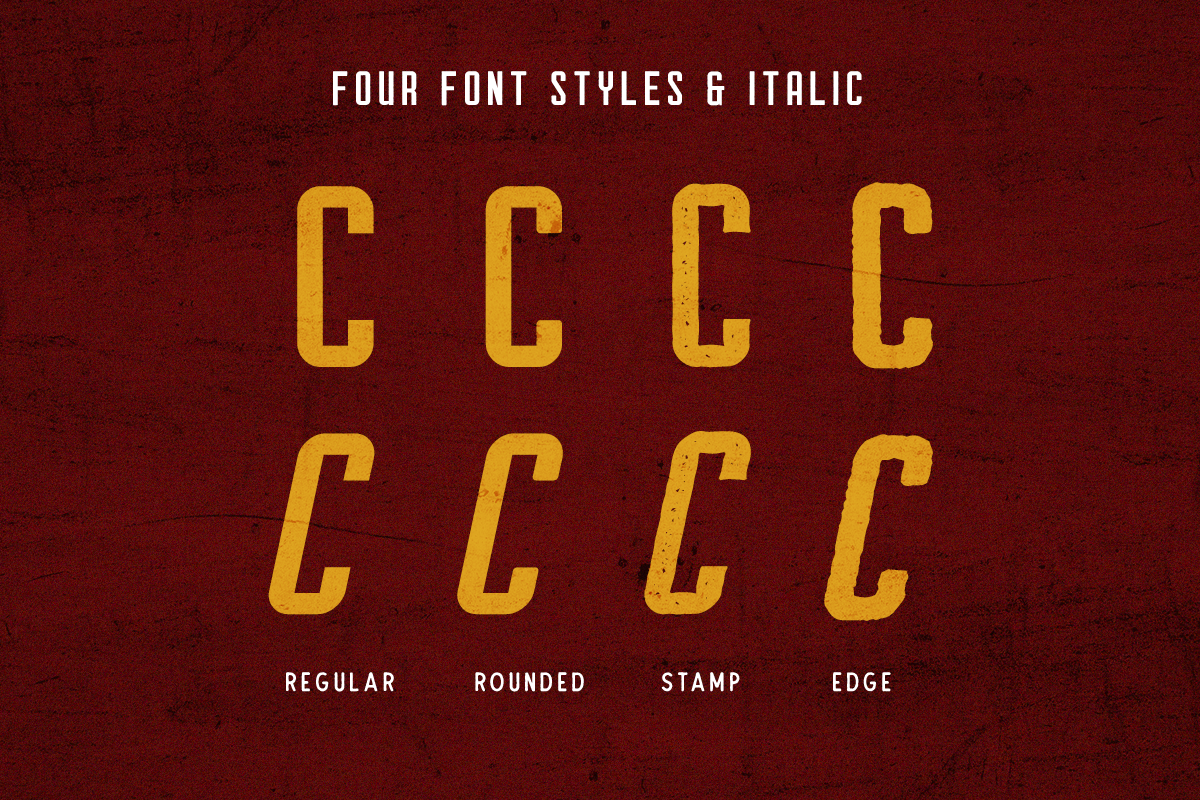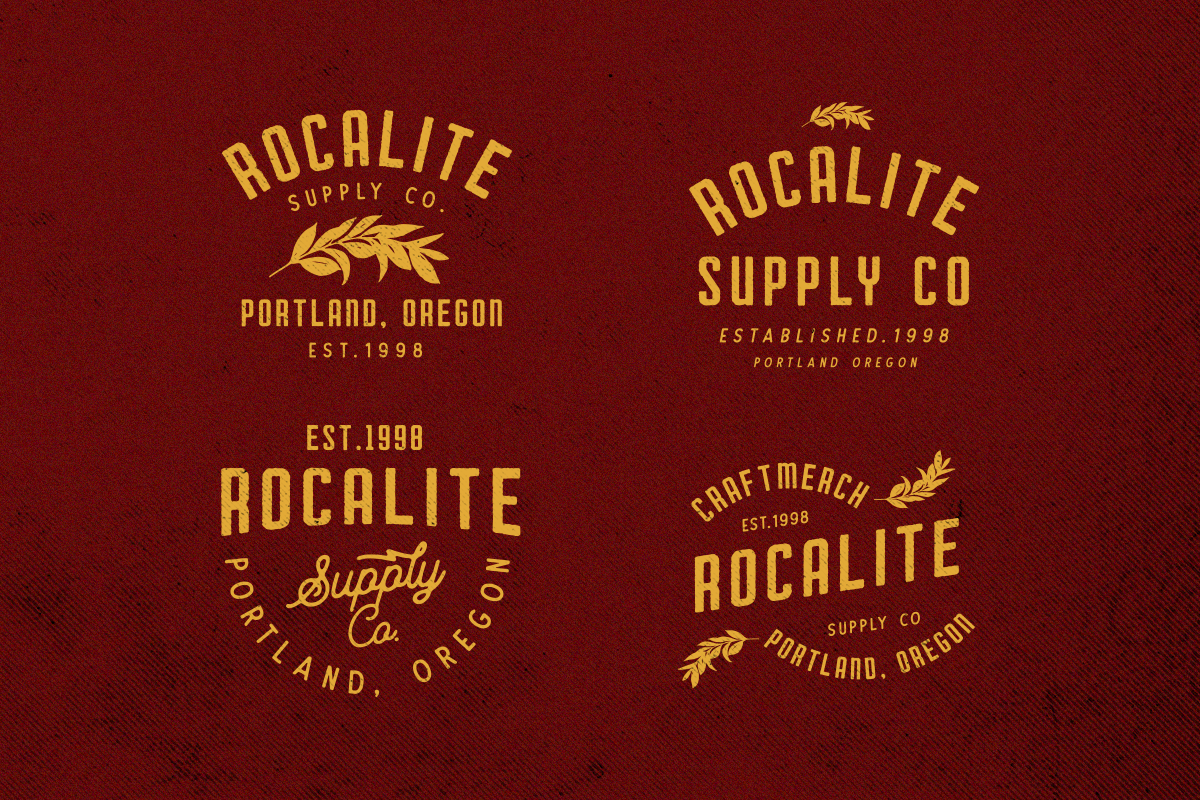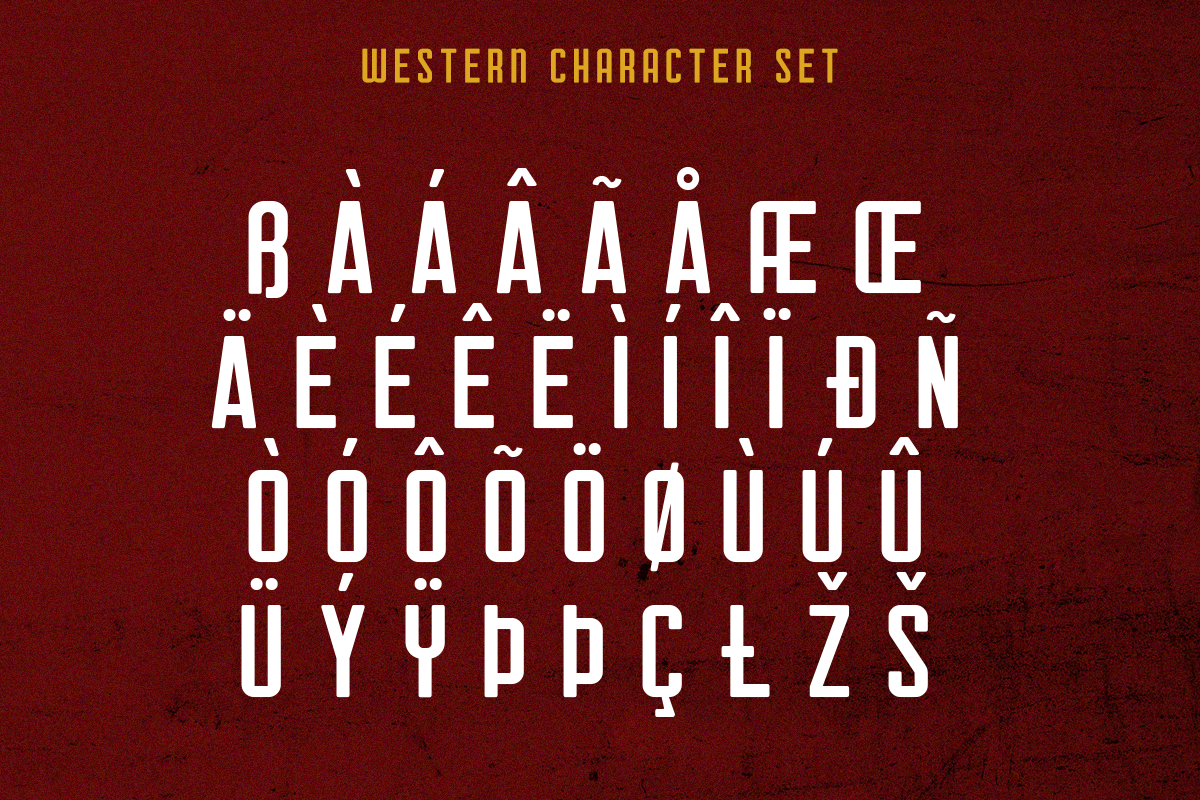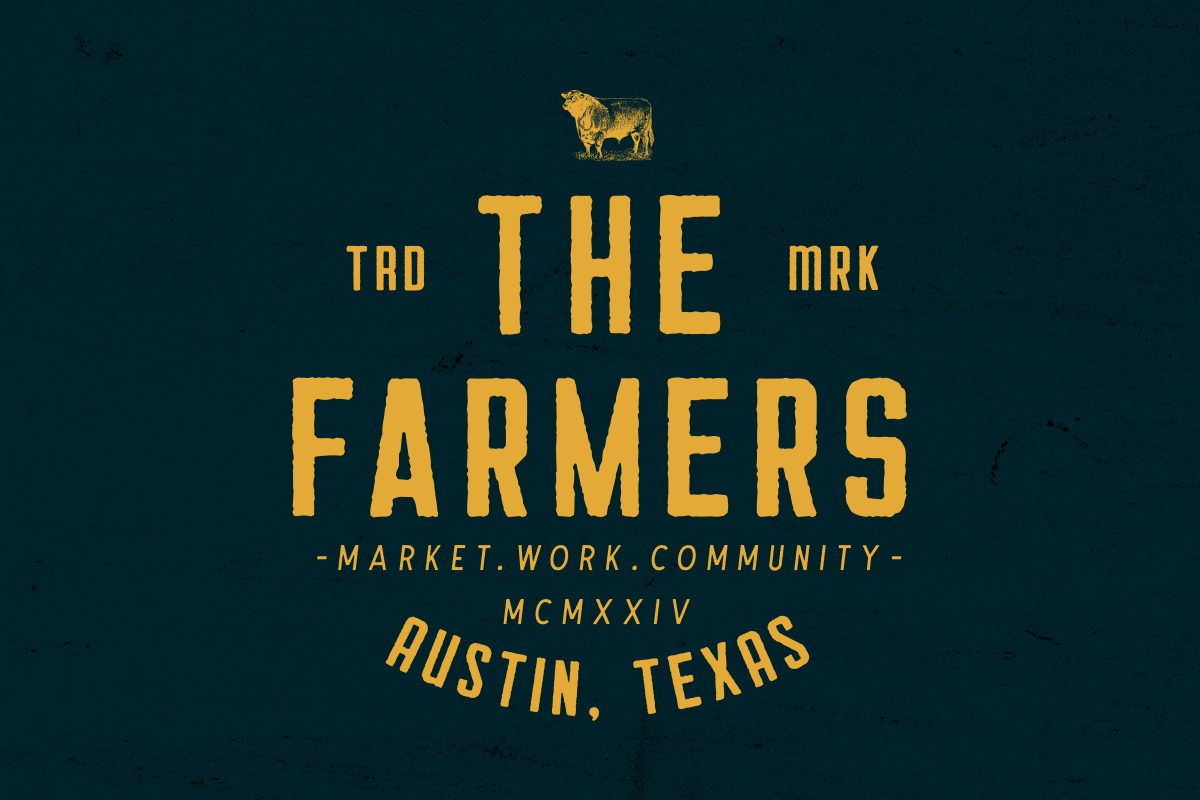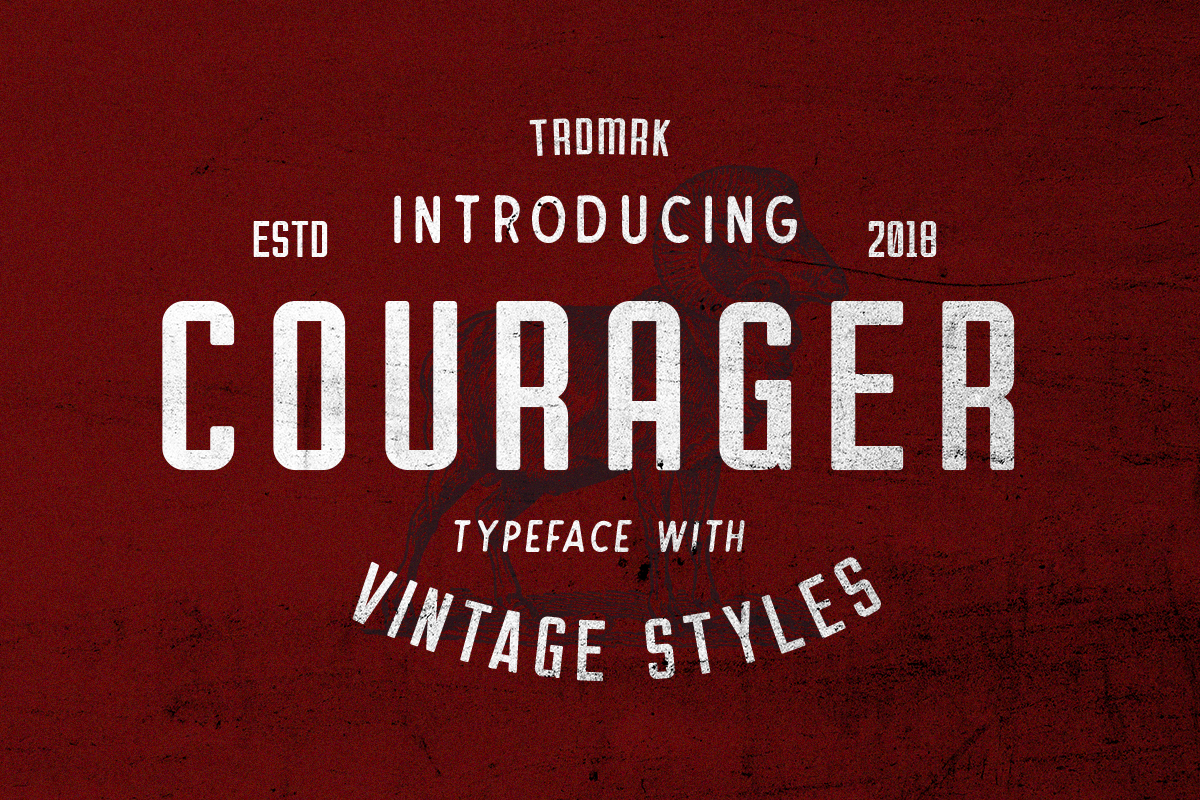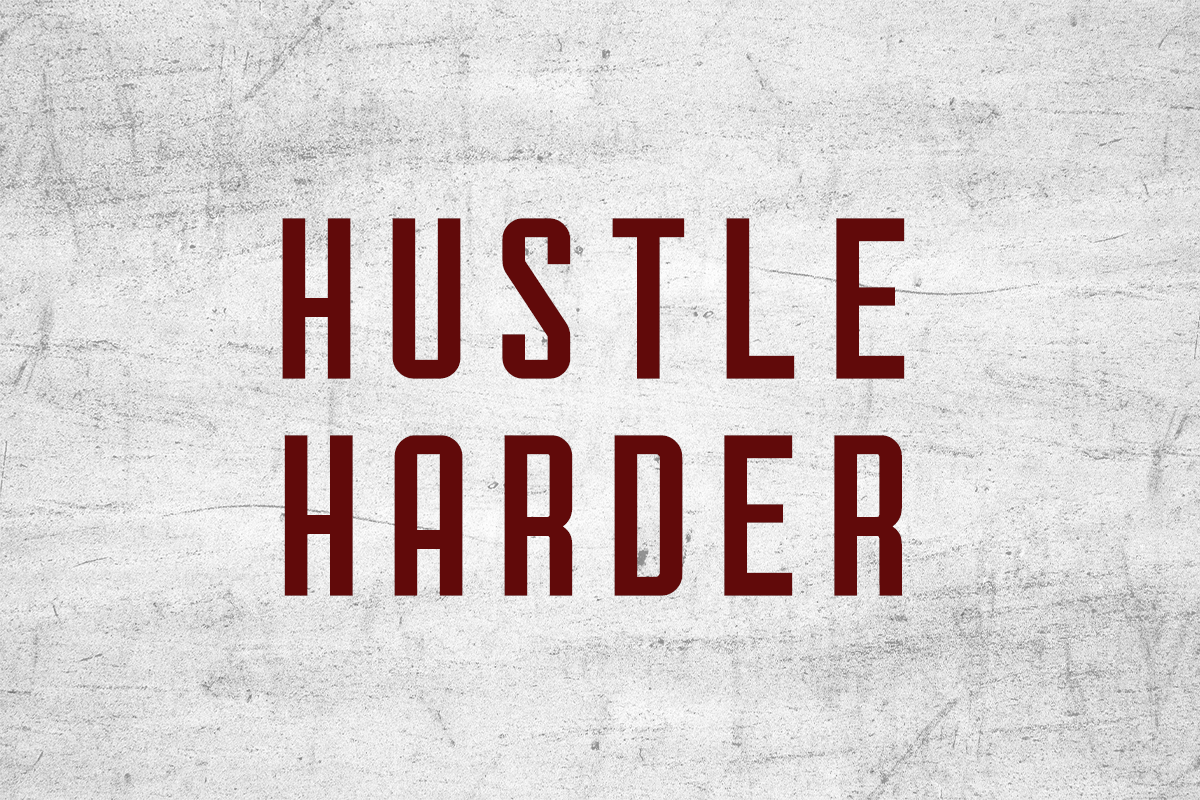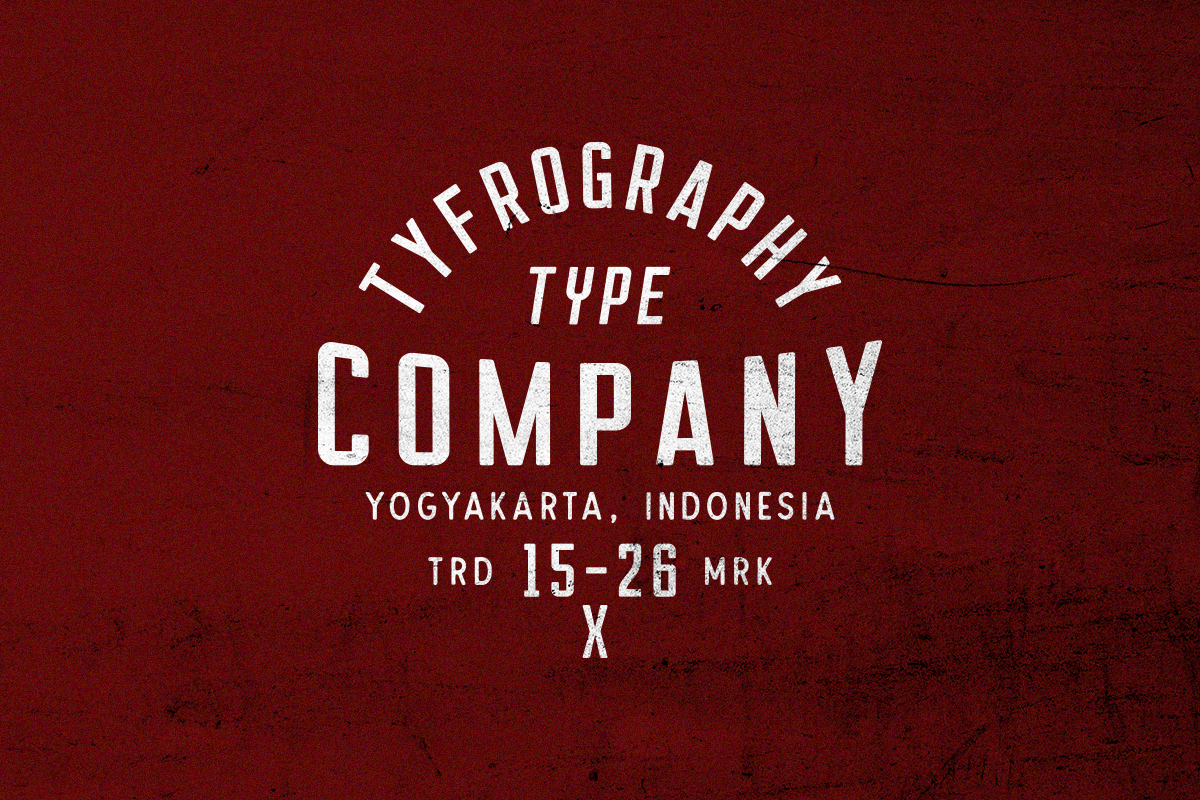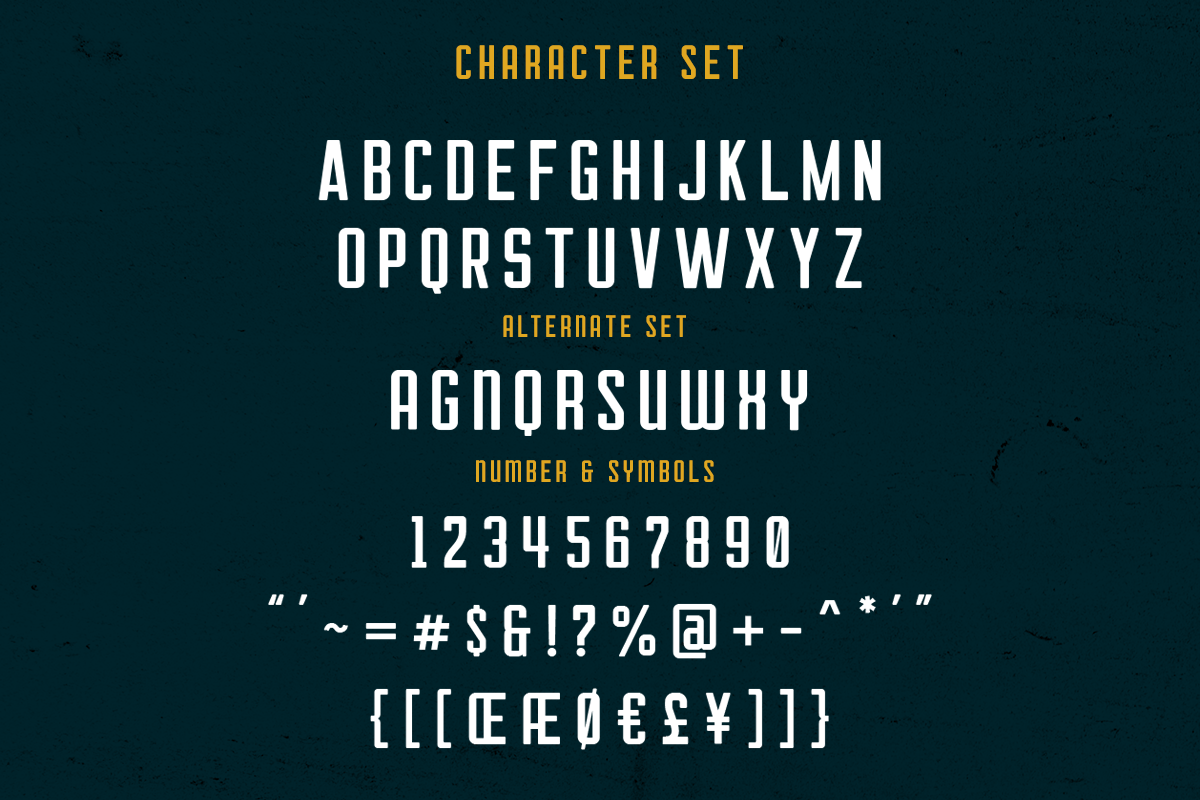
Courager Typeface (8 Fonts!)
Courager is a family of 4 sans serif font designed with carefully handcrafted. Also suitable for branding, T-shirt, Wedding Invitation, Vintage Design, Logotype, and any project. With three style make you easier to design everythings, and a sans bonus to make better design.
Multilingual Support support many different languages 20+ . included AÀÁÂÃÄÅCÇDÐEÈÉÊËIÌÍÎÏNÑOØÒÓÔÕÖUÙÜÚÛWYÝŸỲŸÆŒßÞþ
- Courager Edge Regular
- Courager Edge Italic
- Courager Regular
- Courager Italic Italic
- Courager Rounded Regular
- Courager Rounded Italic Regular
- Courager Stamp Regular
- Courager Stamp Italic
Courager Typeface (8 Fonts!) by Martype fits naturally into Branding, posters, packaging, typography.